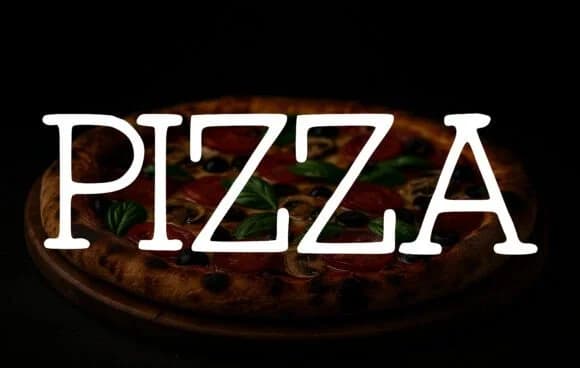
Pizza by OliviaFontCo is a retro slab-serif that channels genuine vintage charm with a distinctly groovy, playful character. Every letter carries substantial weight and personality, bringing authentic warmth to any project that needs visual confidence and that unmistakable 1970s energy.
This typeface thrives in applications that celebrate its bold, nostalgic aesthetic without apology. School bulletin boards and classroom door signage grab students' attention instantly, while retro diner menu cards deliver genuine period flair. Groovy vintage concert posters and event flyers feel authentically retro, and kids' birthday party materials burst with fun that appeals to young designers too. Beyond the classroom, Pizza shines on restaurant branding and cafe signage, product labels with homemade craft appeal, vinyl record designs, vintage band merchandise, and nostalgic food packaging. Activity worksheets for young learners respond beautifully to its distinctive, friendly letterforms. Designers find Pizza delivers immediately recognizable retro vibes without feeling forced, kitschy, or derivative.
Pizza Font is a slab serif font that shines as a display or heading face. Pair it with a clean sans-serif or serif font for body text β the contrast creates a clear hierarchy while the two styles stay balanced and easy to read.